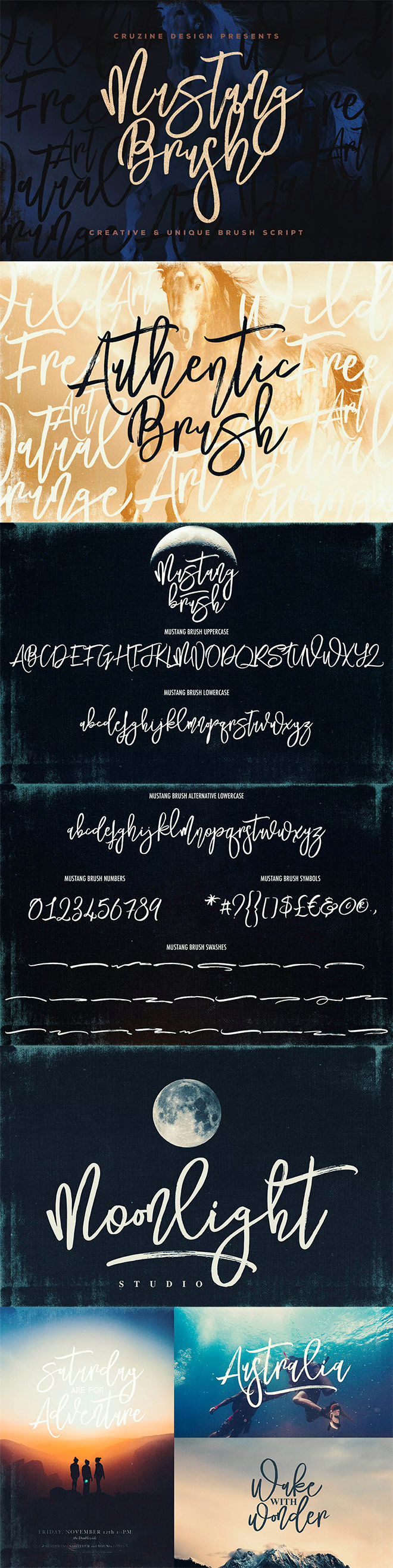
Access All Areas members have a lovely typeface to download this week, courtesy of Dealjumbo. The Mustang Brush font is handwritten brush style display font with a dancing baseline, making it a great choice for use in creative and artistic projects. The family contains three fonts, the main brush font and an alternative version with different character styles, plus a third Swashes font full of decorative underlines.
The Mustang Brush Font is supplied as 3 OTF font files. Set out your wording with the main brush font, then swap out character for different versions from the supplementary alternatives font file to achieve an authentic handwritten look with no repetitive letter styles. Then finish off your lettering art with a stylish underline by selecting a glyph from the Swashes font.